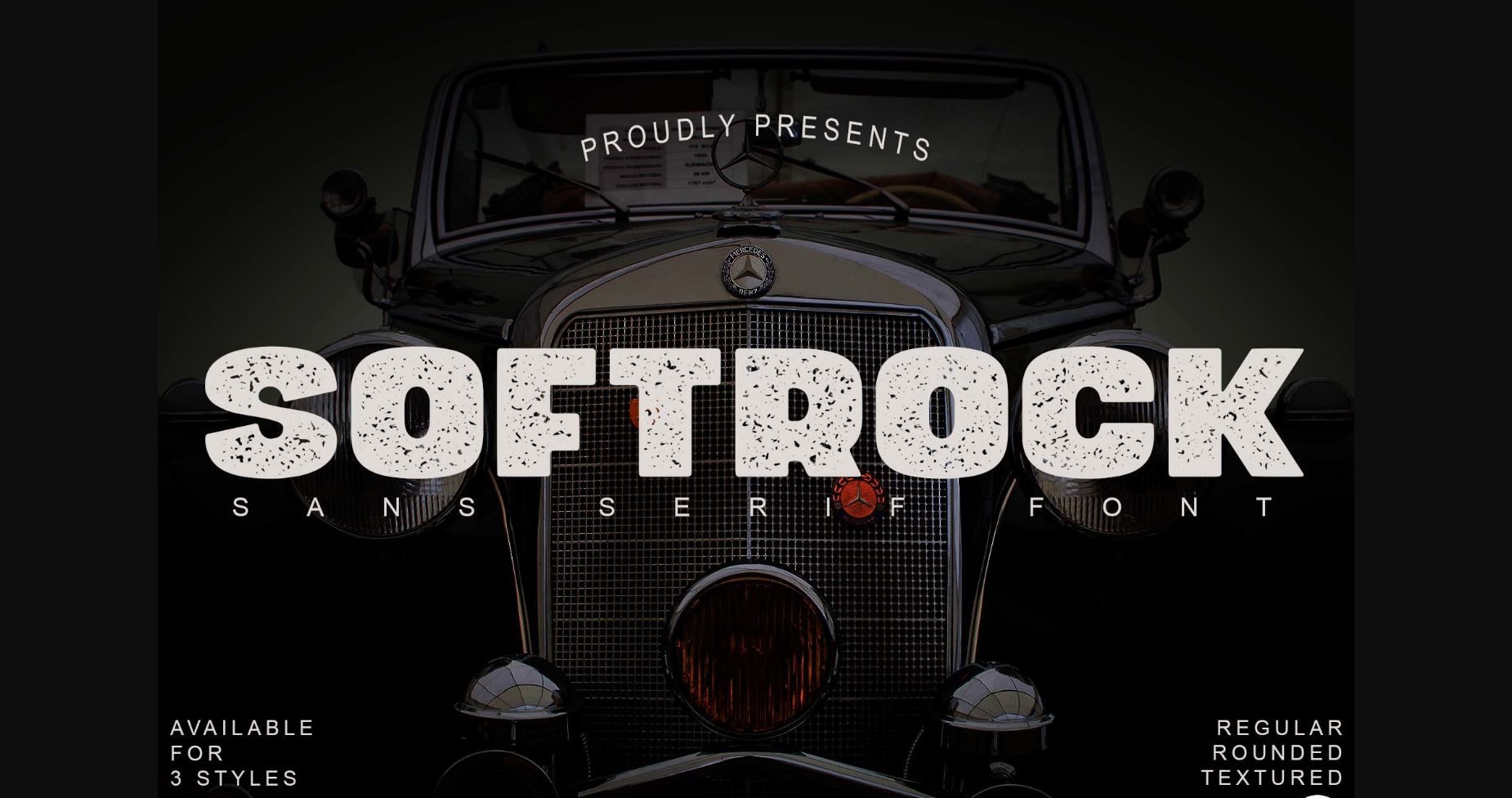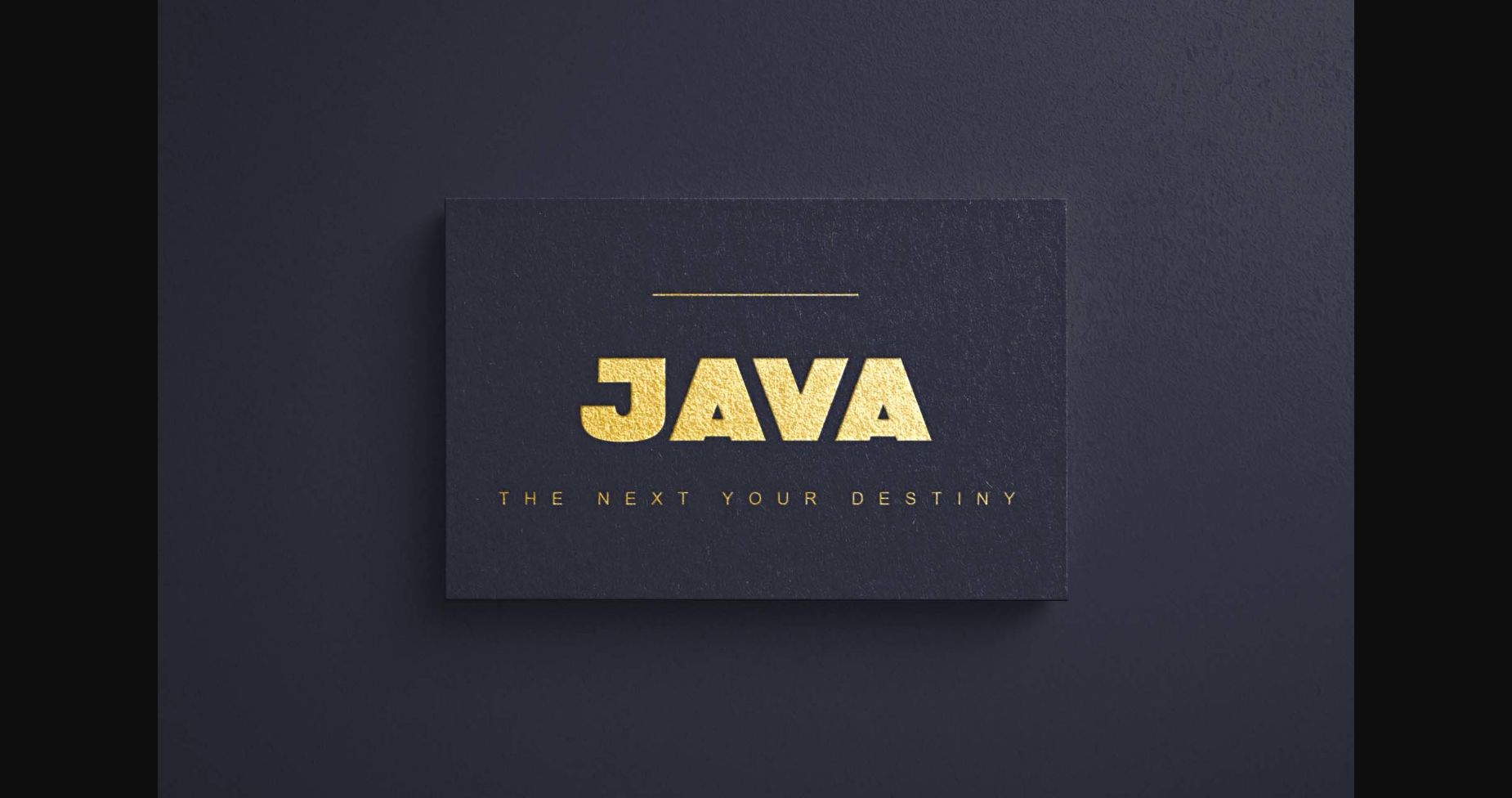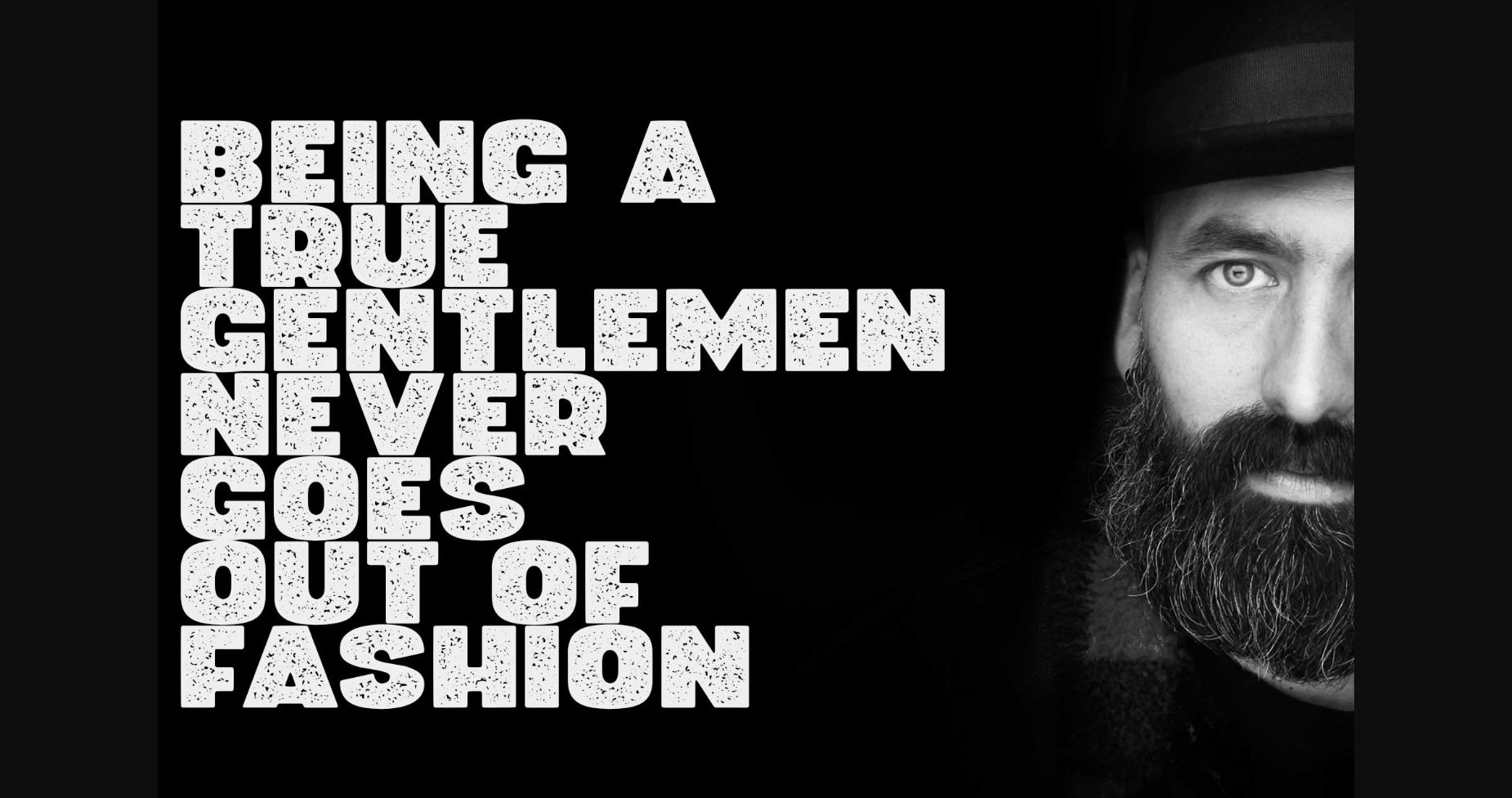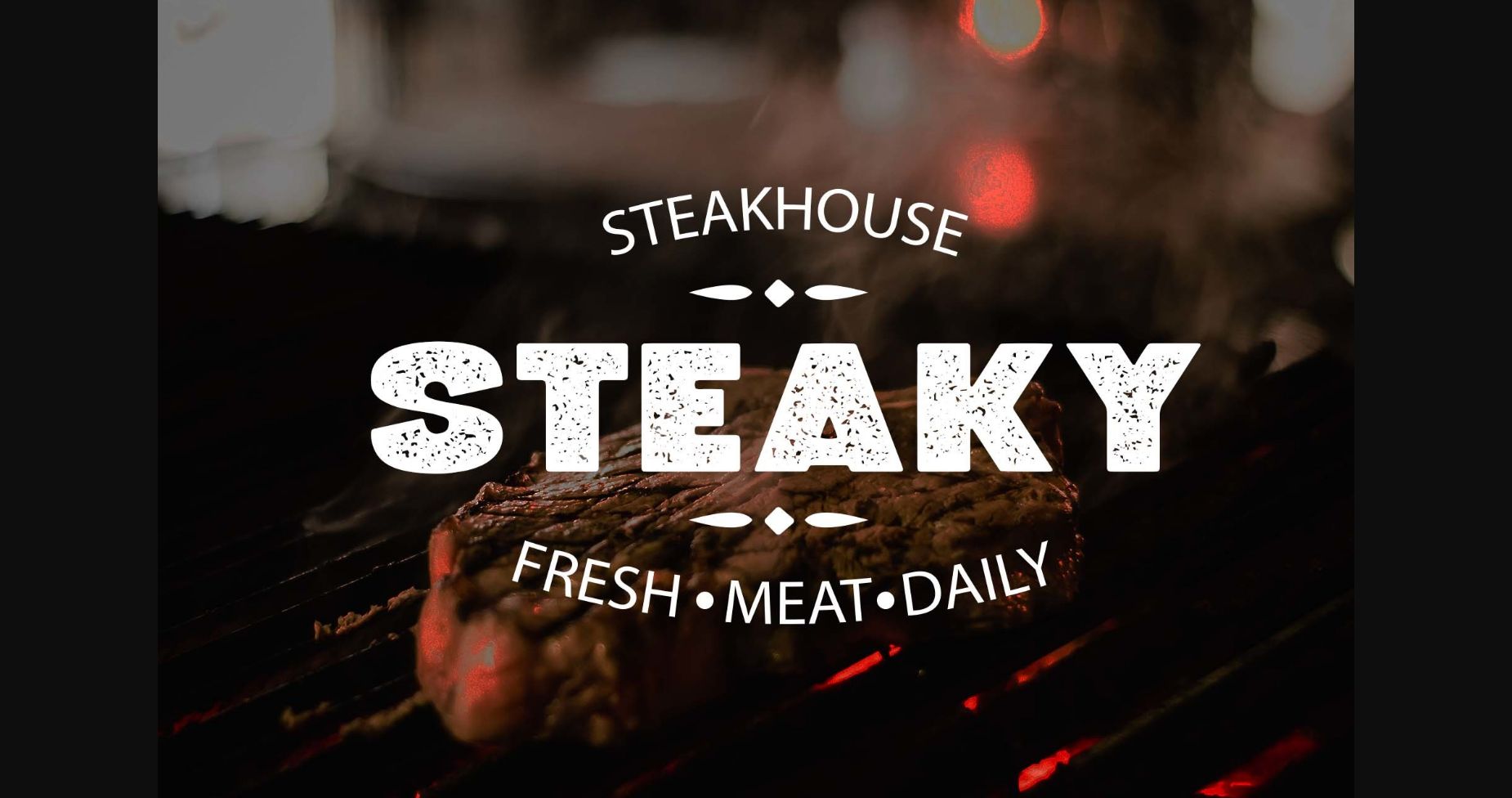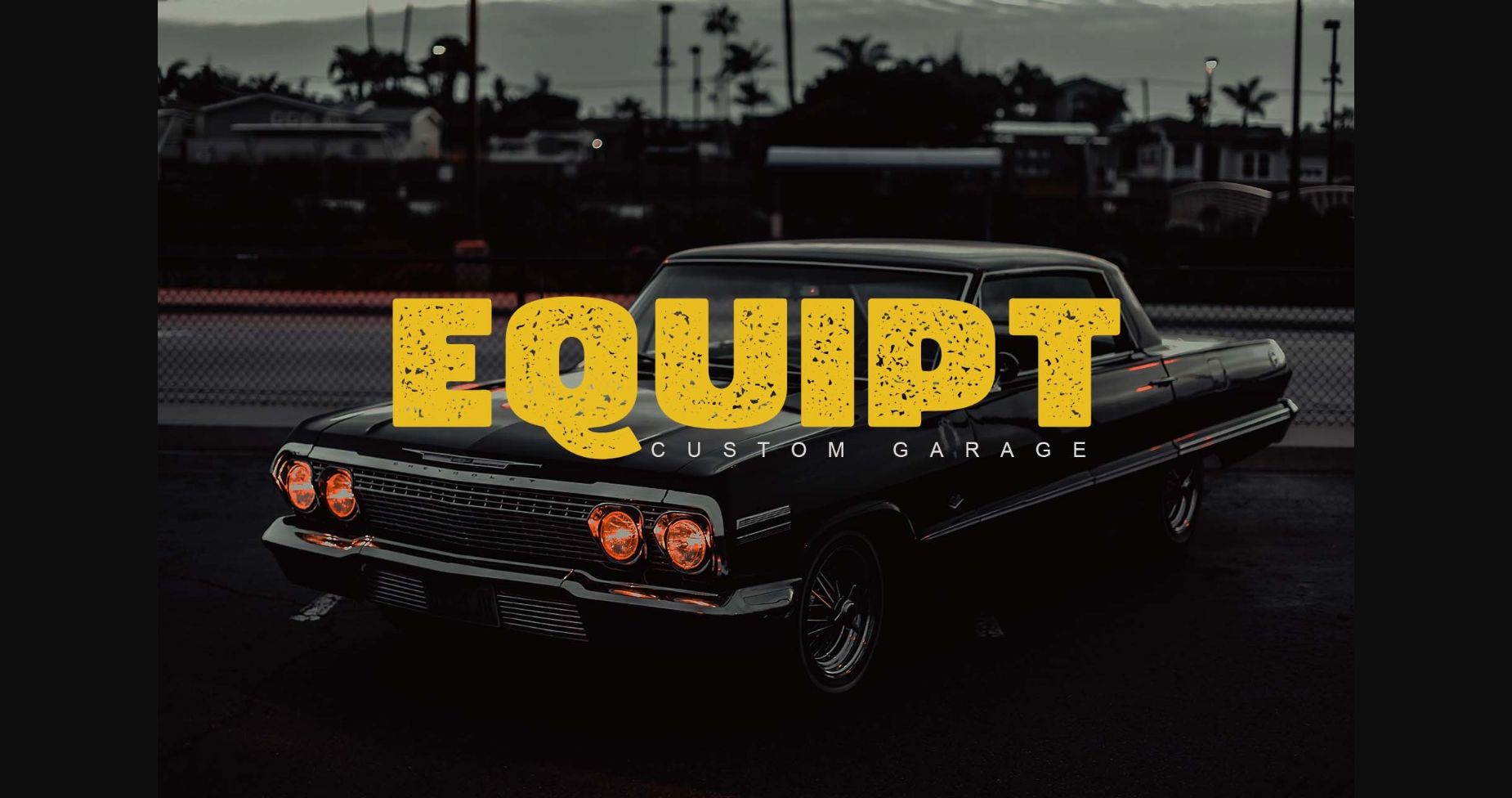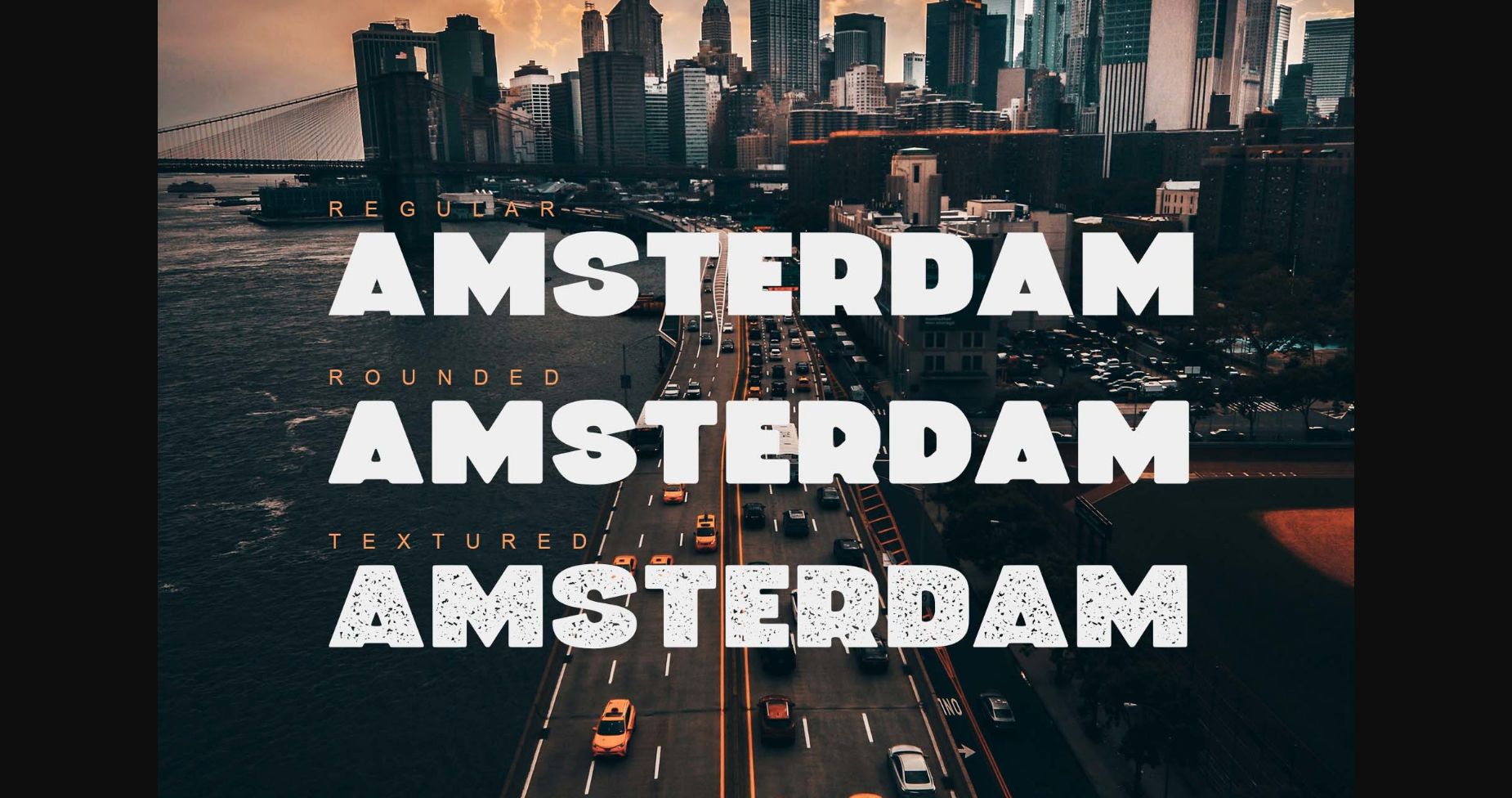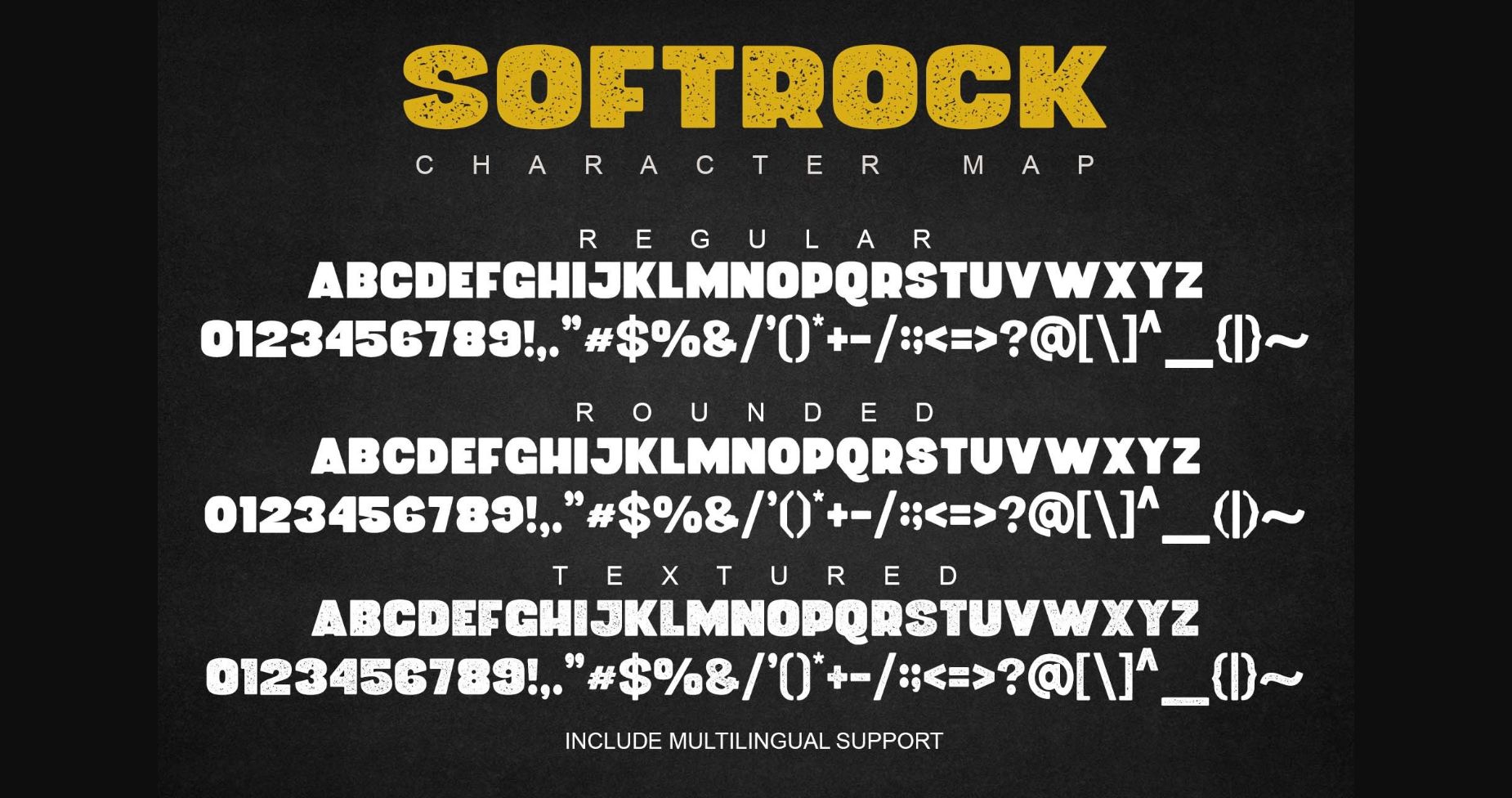
Softrock Font
About Softrock Font
Softrock is a bold sans serif font with different styles and a thick and stylish appearance.
Softrock is made as neatly as possible with great attention to detail, and it is suitable for quotes, headlines, logos, labels, lettering, and packaging.